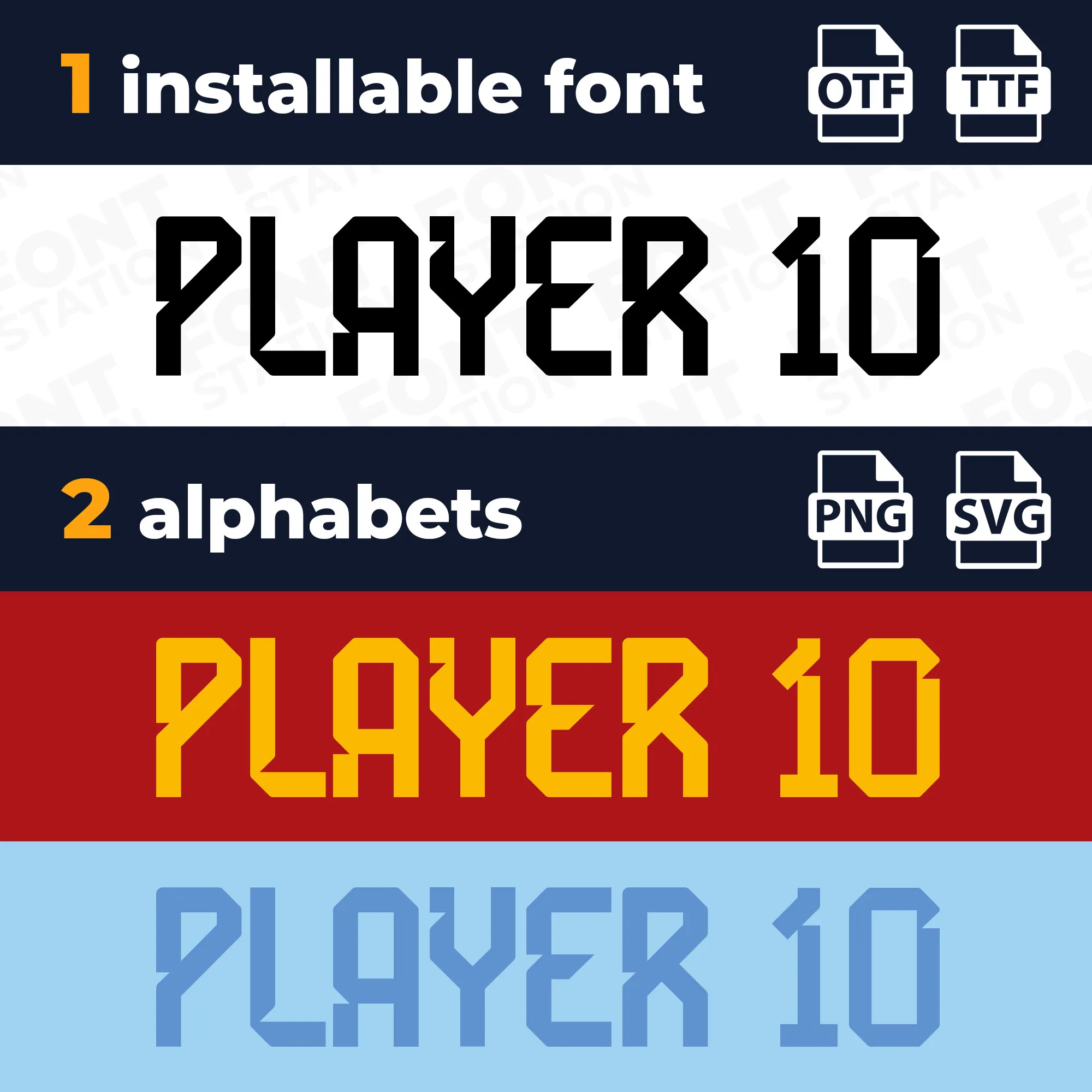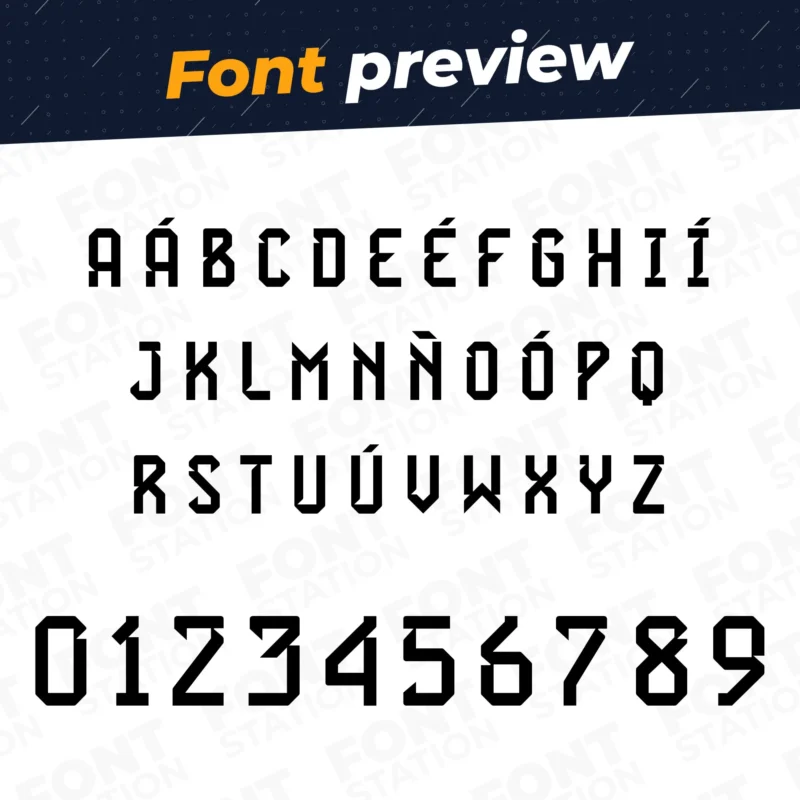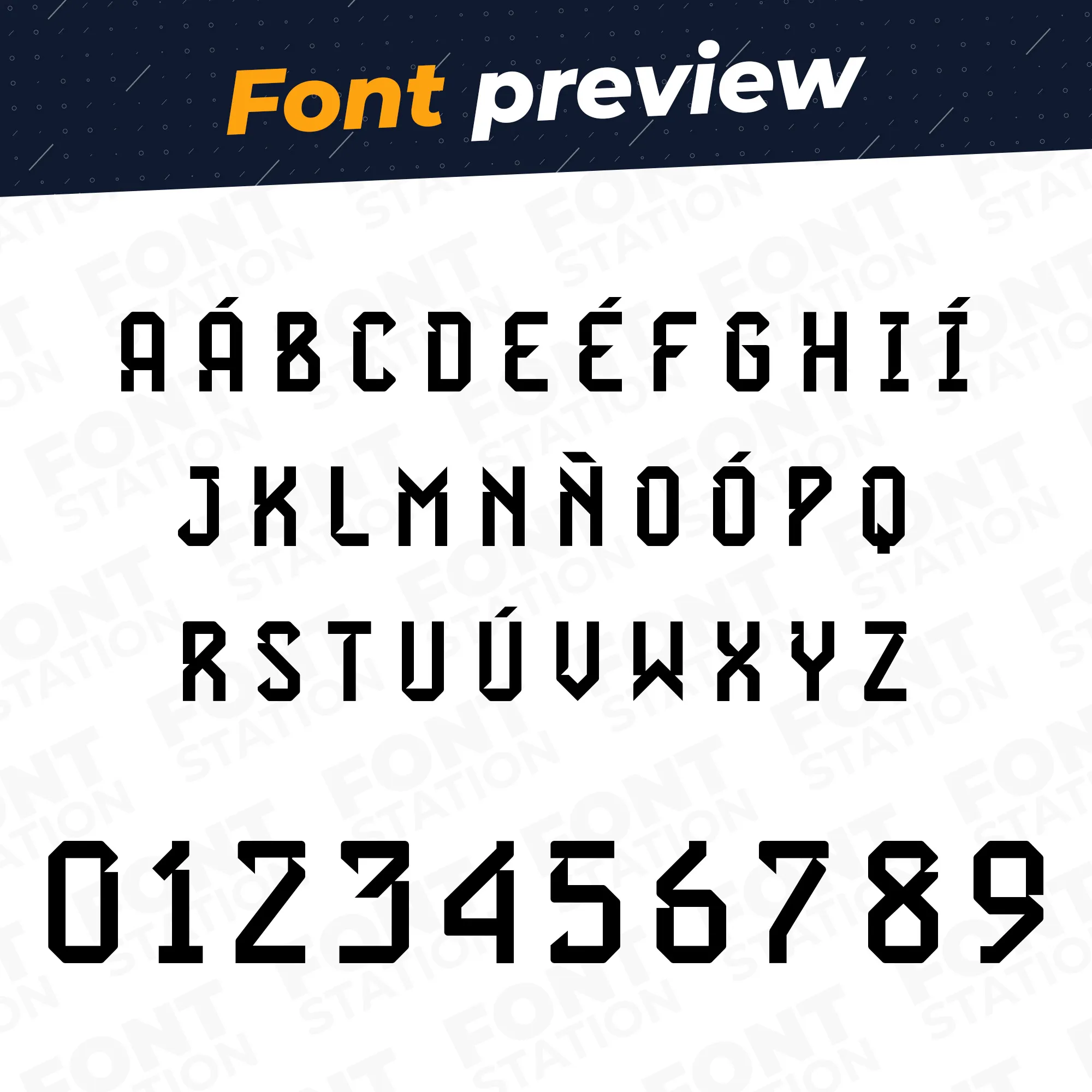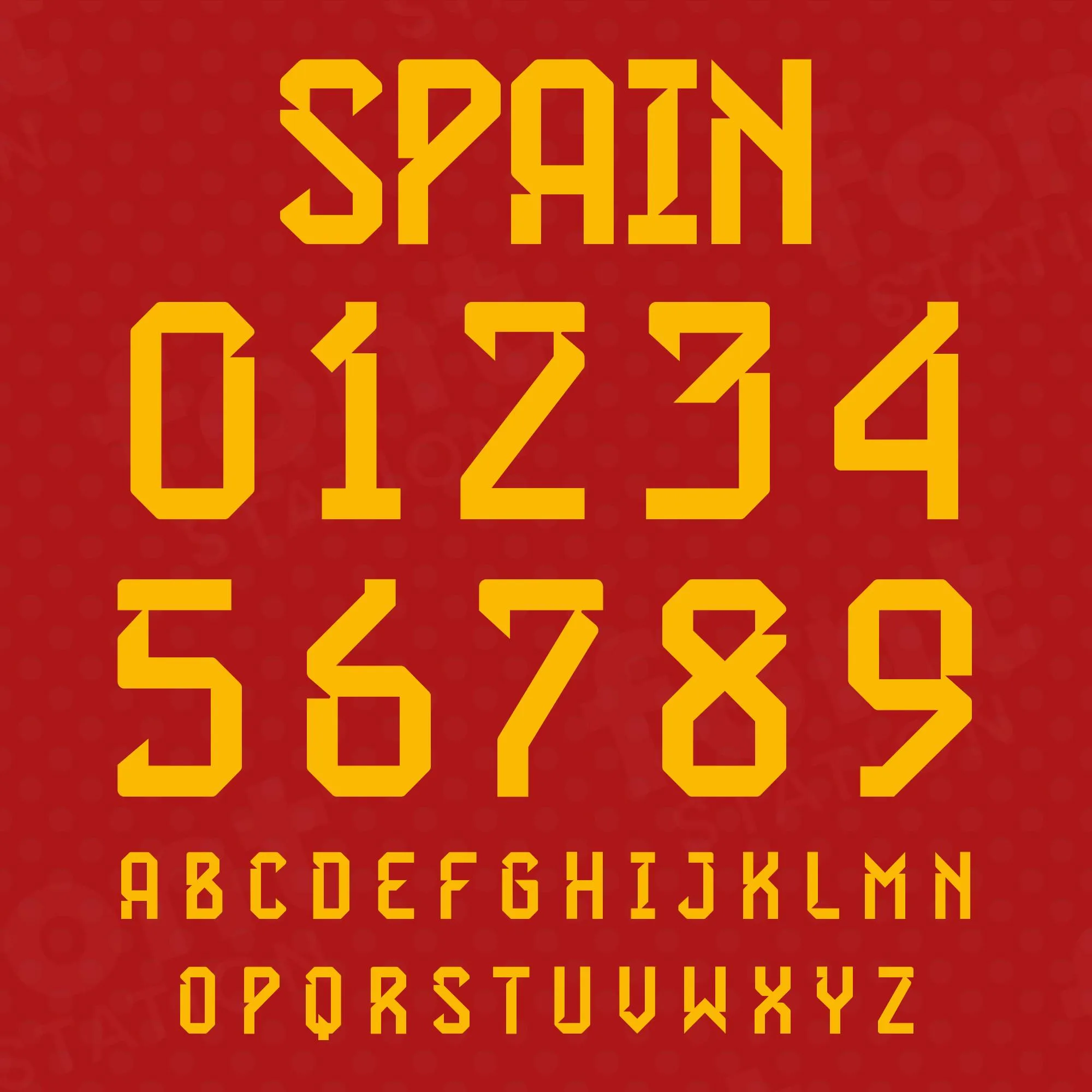
Spain Soccer Font – World Cup 2022
Grab your computer, tablet or other device and start creating right now with our Spain Football font letters! Our Spain World Cup typography is inspired from Spain Team font, making it ideal for various digital creations (logo, word…), sublimation, cake toppers, stickers, event decorations, and more.